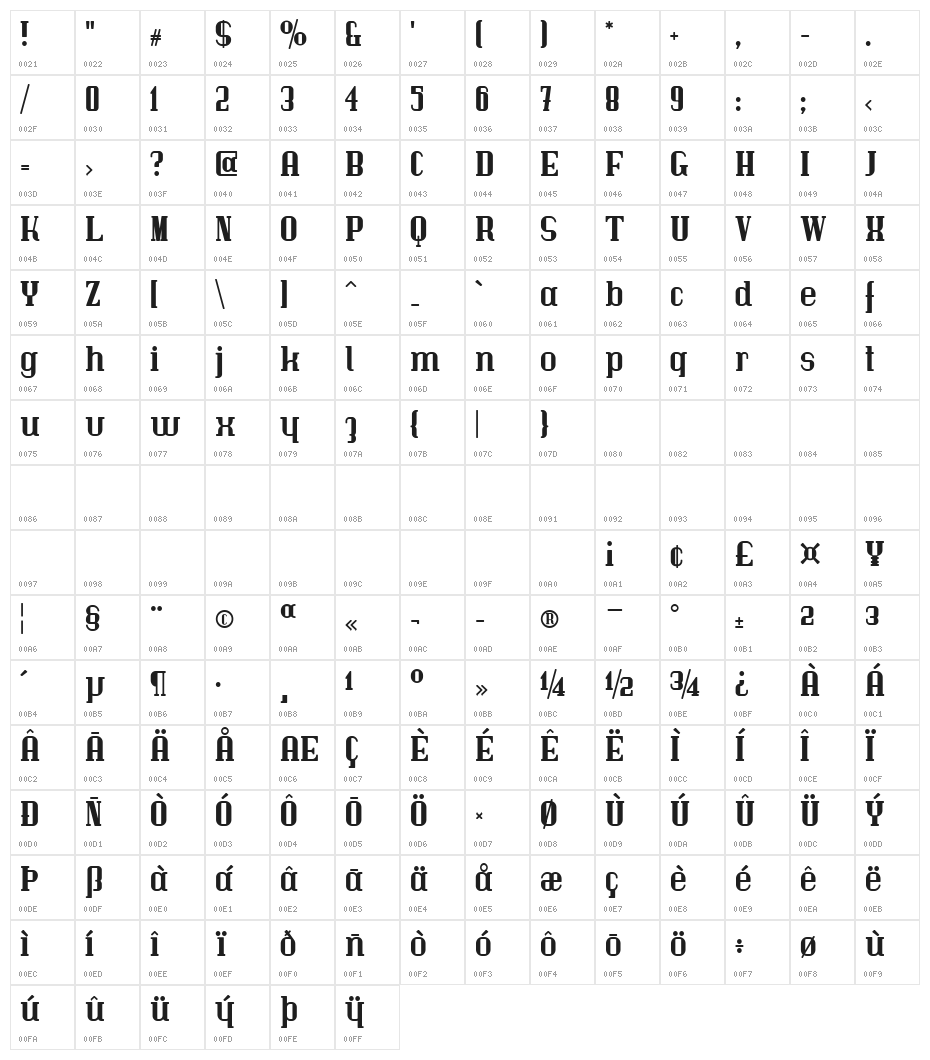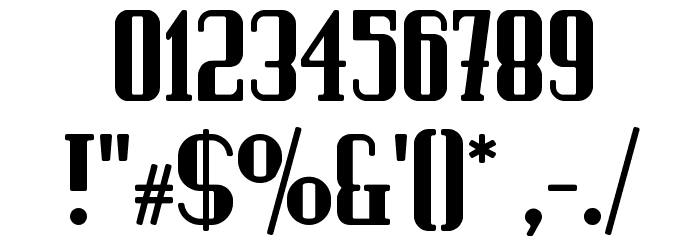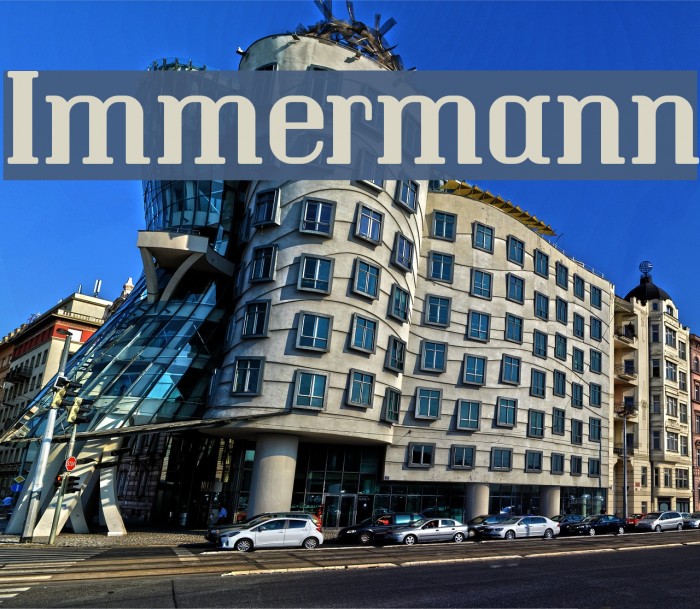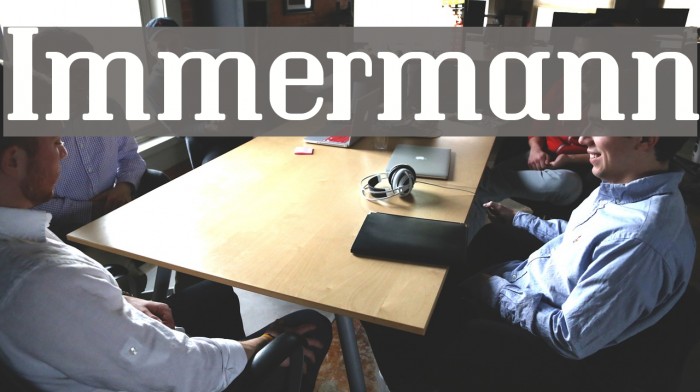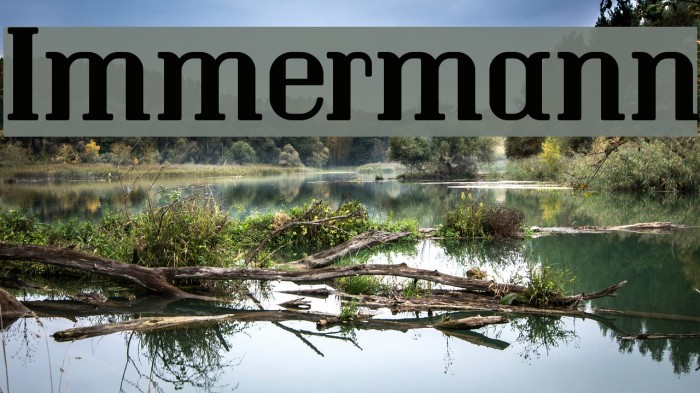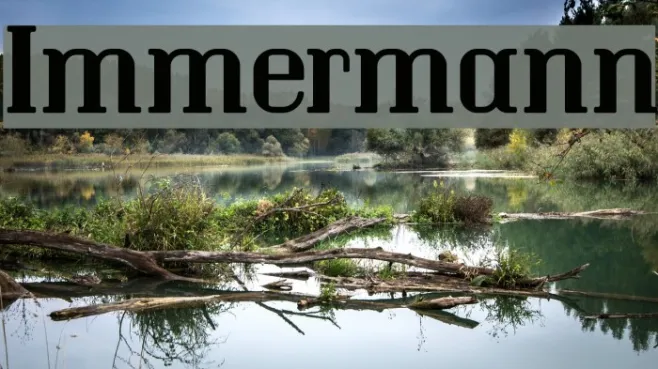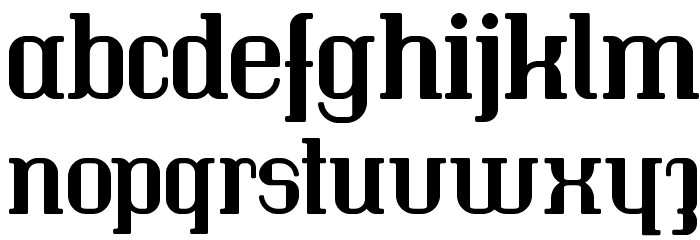
Immermann Font
Immermann Description
This font features a bold and striking design with a strong presence. The uppercase letters are tall and commanding, while the lowercase letters maintain a consistent style that complements the uppercase. The numbers are equally bold, ensuring readability and impact. The special characters are designed with the same boldness, making them stand out. The overall design is reminiscent of vintage typefaces, with a modern twist that makes it suitable for contemporary use. The strokes are thick and consistent, providing a sense of stability and confidence.